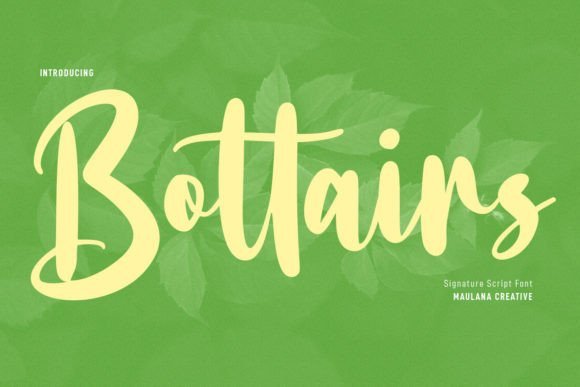
The Birth of a Creative Masterpiece: Bottairs Font
Have you ever been brainstorming for hours, staring at a blank canvas, waiting for that one spark of inspiration that will elevate your design from good to great? For many creatives, this is a familiar feeling. It’s the moment when everything clicks into place, and the idea begins to take shape. This is exactly what happened when the Bottairs Font was born – a casual upright script font with bold contrast strokes and a fun character that adds a touch of ligature to give your work an extra creative boost.
Bottairs Font is perfect for designers looking to add a personal touch to their projects. Whether it’s a logo design, social media post, movie title, or book title, this font is sure to make a statement. Its versatility and unique character make it a valuable asset for any designer looking to create stunning work.
Bottairs Font Key Features
- Unique Characteristics: Bottairs Font features a unique blend of modern and vintage elements, with intricate details and ornate flourishes
- Kerning and Ligatures: Includes advanced kerning and ligature pairs for improved readability and aesthetics
Bottairs Font Review
Overall, I think Bottairs is a solid choice for any project that needs a classic, elegant feel. ✨ The font’s high contrast and clear letterforms make it easy to read, even at smaller sizes. I’ve used it for headings and titles, and it really stands out.
One thing that really impresses me is the font’s flexibility. ✨ Bottairs comes in a range of weights, from thin to bold, which makes it easy to match the font to your project’s style. I’ve used the light weight for body text and the bold weight for headings, and it looks great.
While Bottairs is a great font, there are a few limitations to be aware of. ⚠️ One of the main issues is that it can look a bit dated. The font’s design is classic, but it’s not particularly modern or innovative. This might be a problem if you’re looking for a font that’s going to be cutting-edge.
- Lack of italic styles
- No bold-italic styles
- Not ideal for display text (e.g. posters, signs)
Overall, I think Bottairs is a great choice for any project that needs a classic, elegant feel. While it may not be the most modern or innovative font, it’s a solid choice that’s easy to use and looks great in a range of contexts. I’d definitely recommend it to anyone who’s looking for a reliable, high-quality font.
Tips for Getting the Most Out of Bottairs Font
2. Pair Bottairs Font with other fonts to create a unique and interesting design.
3. Use Bottairs Font to add a touch of elegance and sophistication to your designs.
Common Use Cases for Bottairs Font
Bottairs Font is ideal for:
2. Luxury branding and packaging.
3. High-end fashion and beauty design.
Alternatives to Bottairs Font for Designers
Playfair Display is a luxurious, high-end serif font suitable for formal and elegant designs. It’s ideal for creating a sense of sophistication and refinement. When to use: Fashion, luxury branding, high-end products, and formal invitations.
Playfair Display compares to Bottairs Font as it offers a more refined and elegant look, making it perfect for formal designs. However, it lacks the unique, distressed feel of Bottairs Font.
Great Vibes is a beautiful, elegant script font that adds a touch of sophistication to any design. It’s perfect for creating a sense of luxury and refinement. When to use: Fashion, beauty, luxury branding, and high-end products.
Great Vibes is similar to Bottairs Font in its elegant and refined look, but it has a more fluid and cursive feel, making it suitable for designs that require a sense of movement and fluidity.
Q: How do I customize the Bottairs Font for specific design projects?
The Bottairs Font is highly customizable, allowing you to adjust font sizes, line heights, and spacing to suit your design needs. You can also use font editors or software to modify the font’s glyphs, kerning, and other parameters. Additionally, you can pair the Bottairs Font with other fonts to create a unique visual identity for your project.